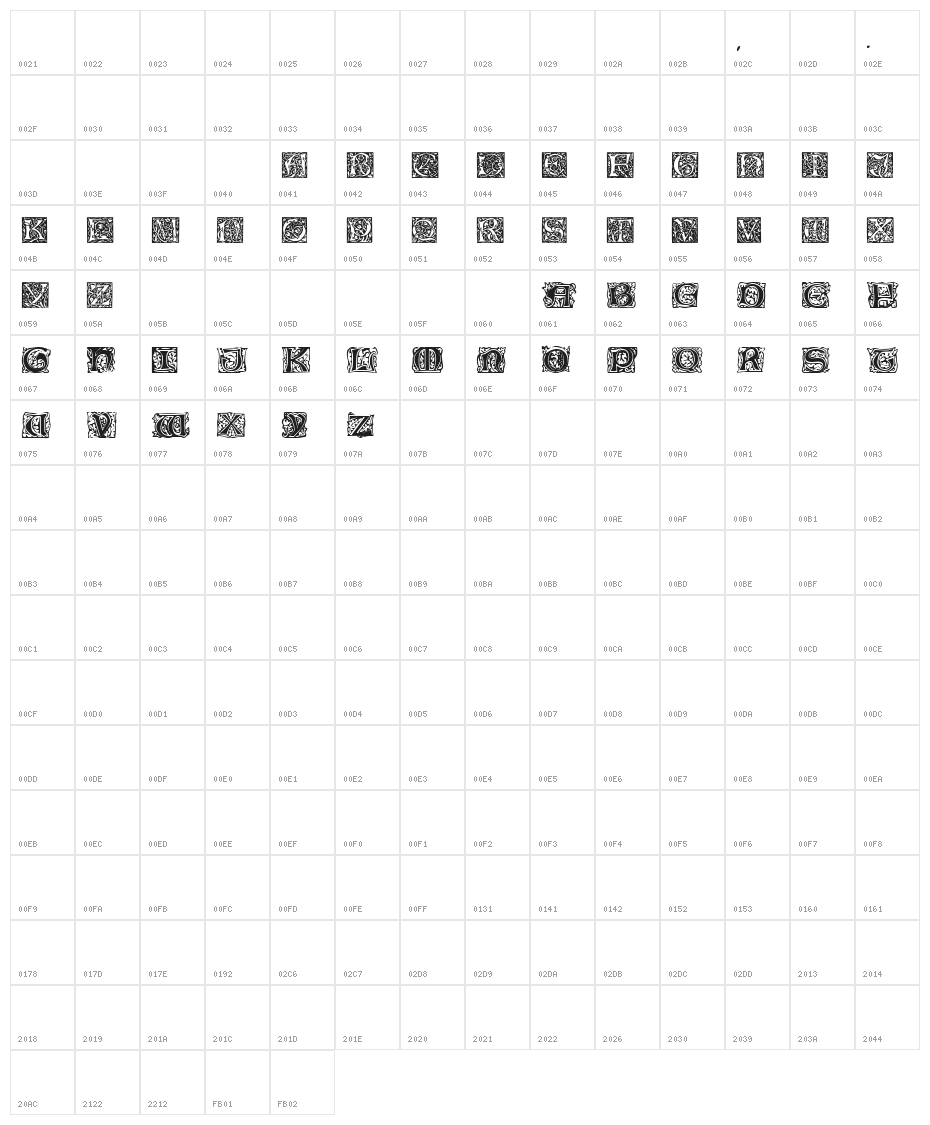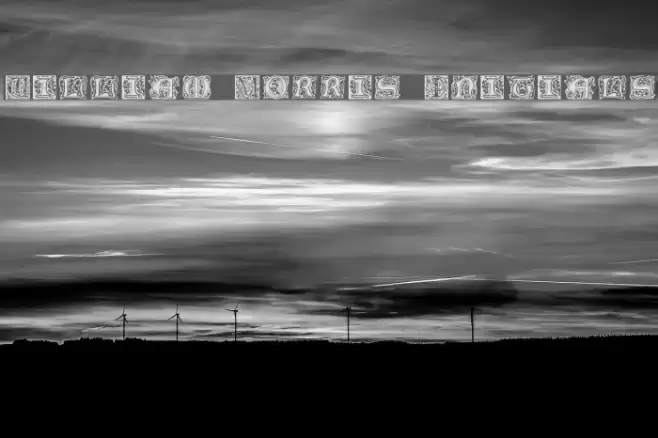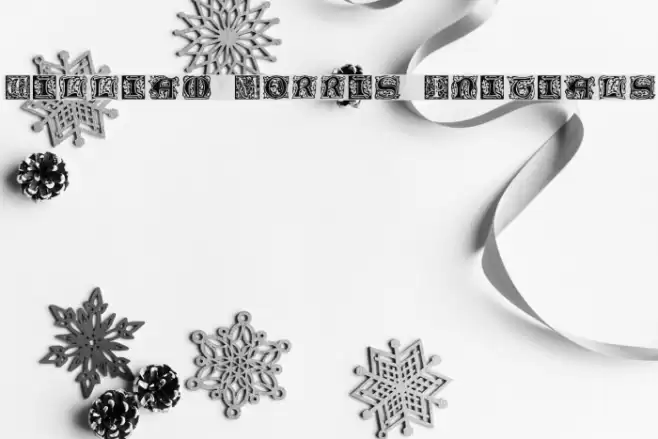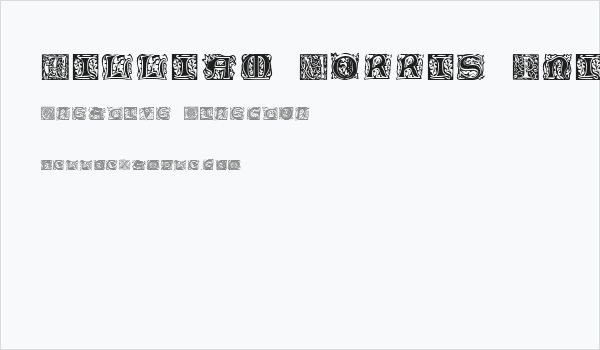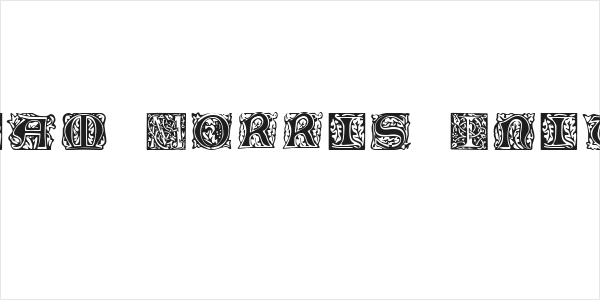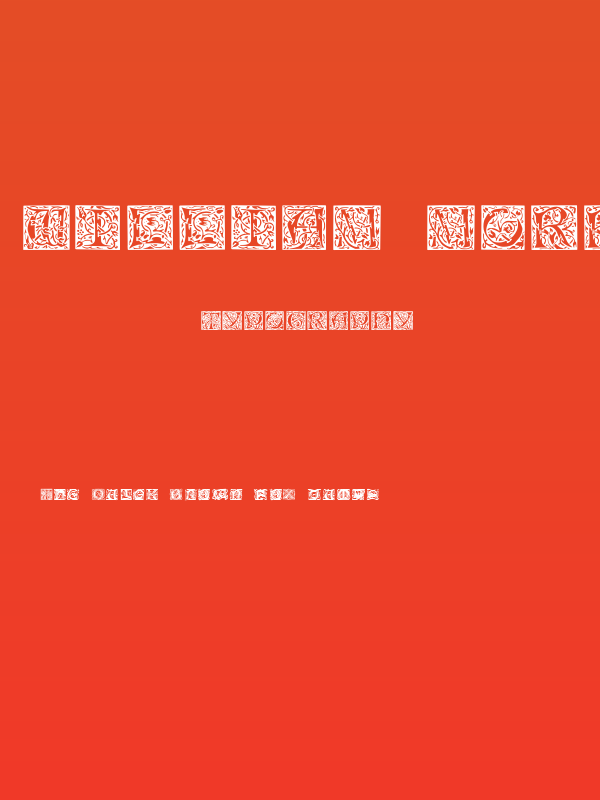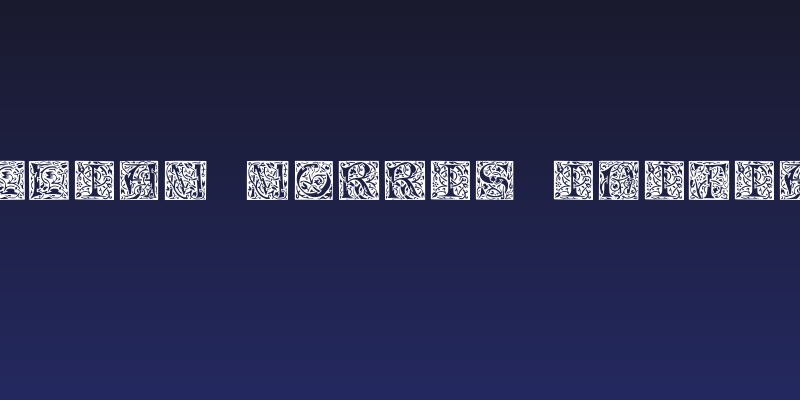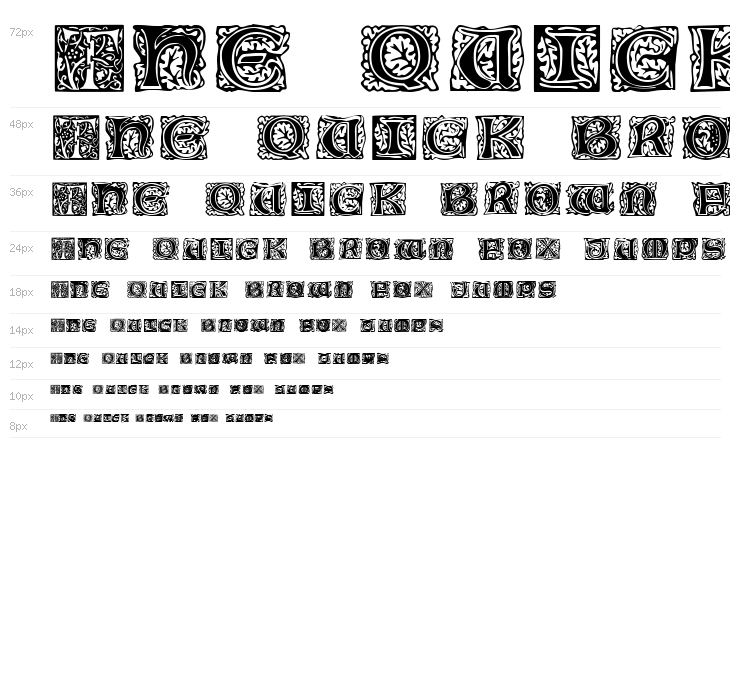
William Morris Initials Font
William Morris Initials Description
This font is a highly decorative and ornate style, reminiscent of medieval manuscript initials. Each letter is encased in a square, filled with intricate floral and vine motifs that intertwine around the letterforms. The design is rich in detail, capturing the essence of historical craftsmanship with a touch of elegance and sophistication. The letters are bold and prominent, making them stand out against the elaborate backgrounds. This style is perfect for creating a sense of antiquity and grandeur, ideal for projects that require a historical or artistic flair.
| Proposed Projects | Ideal for book covers, wedding invitations, historical documents, and artistic projects that require a vintage or medieval aesthetic. |